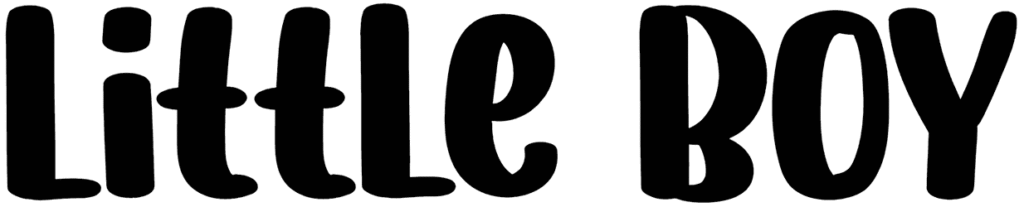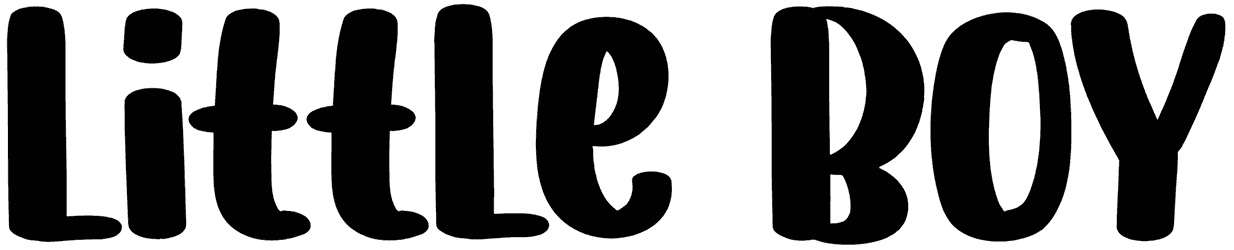
Little Boy Font
Little Boy is an awesome fancy font that boosts the viewer’s energy. This cartoon font has a cute style and grabs your attention at first glance. You may use the Little Boy font in several situations, such as cartoons, animations, and any products related to children.
This font’s letters are bold and have smooth edges, creating a friendly feeling. Moreover, they have a balloon shape and seem entertaining to your audience, so download this font to impress them.
Little Boy is a cute, friendly and fun display font. This font is perfect for children themed designs, especially when combined with bright colors.